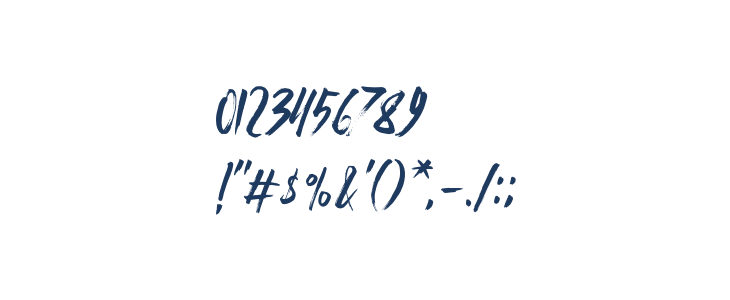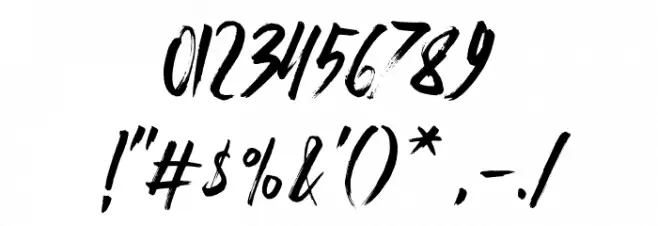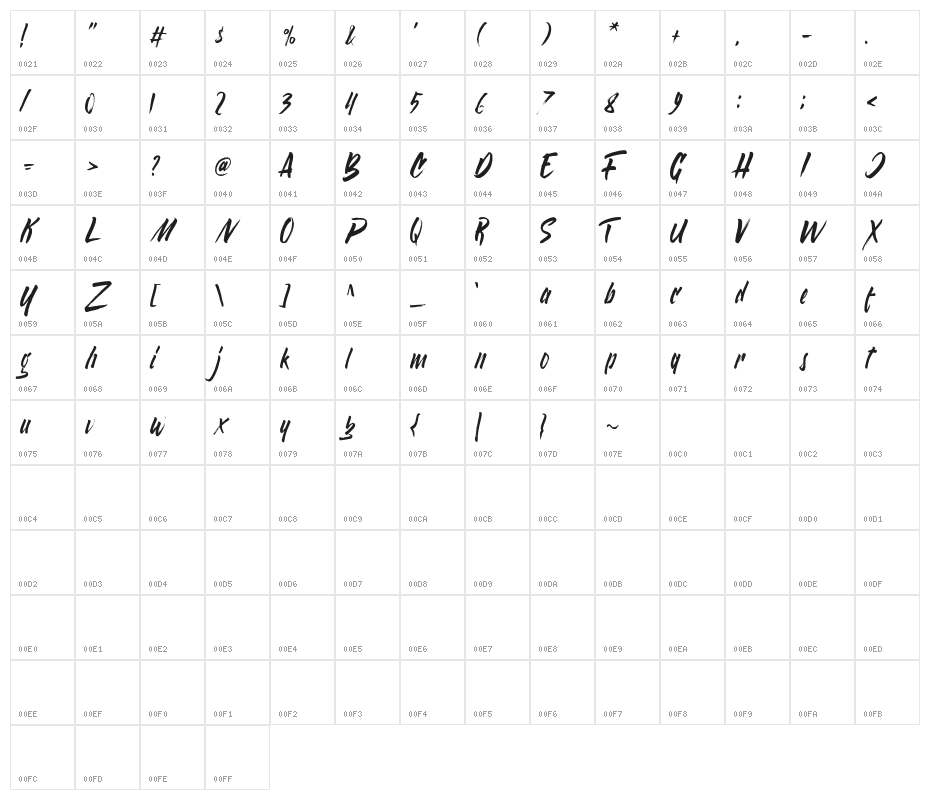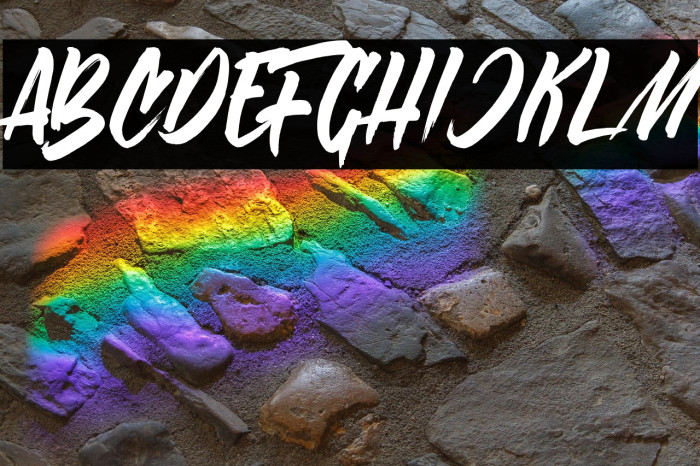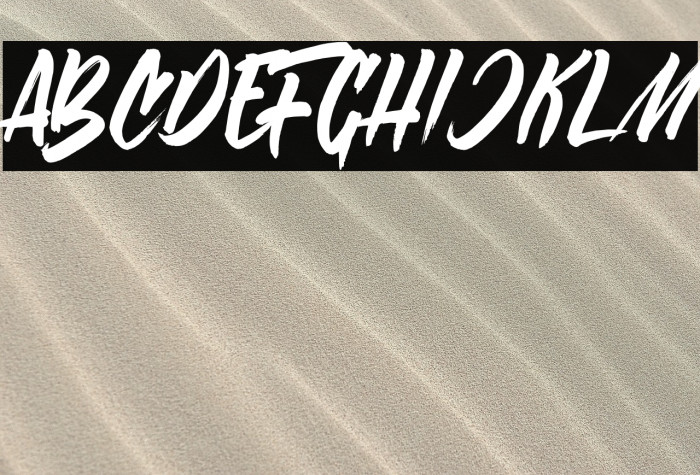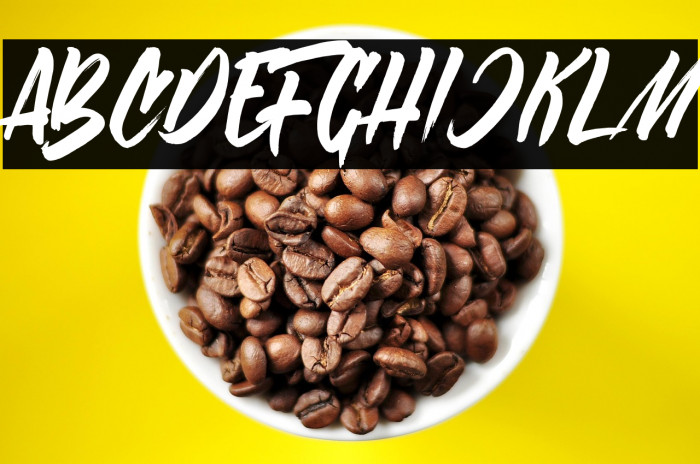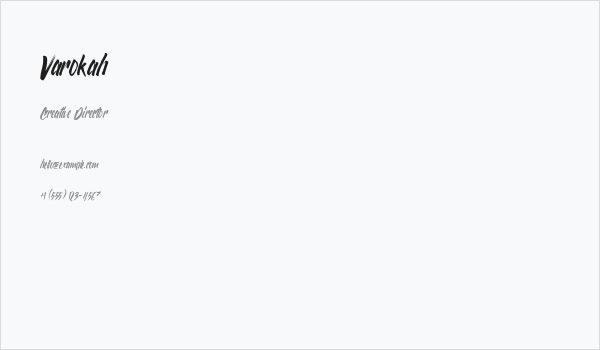
Varokah Font
Varokah Description
This font exudes a dynamic and energetic style, characterized by its bold, brush-like strokes that convey a sense of movement and fluidity. The uppercase letters are particularly striking, with their sweeping curves and sharp angles, while the lowercase letters maintain a consistent flow that complements the overall design. The numerals and special characters are equally expressive, adding to the font's versatility. Its hand-drawn appearance gives it a personal and artistic touch, making it ideal for projects that require a bold statement.